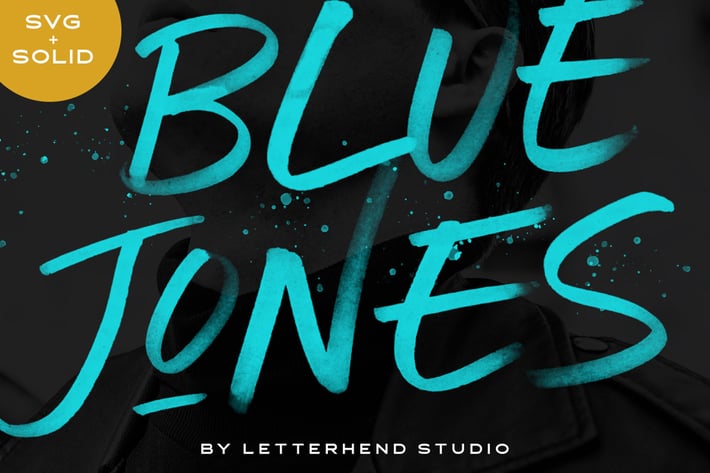
Blue Jones - SVG Font
Introducing, Blue Jones - a textured SVG brush typeface. Available in two types, solid version and transparent version. This type of font perfectly made to be applied especially in headlines which is need a standout font, and the other various formal forms such as invitations, labels, logos, magazines, books, greeting / wedding cards, packaging, fashion, make up, stationery, novels, labels or any type of advertising purpose.
+ numbers and punctuation
+ multilingual
+ ligatures